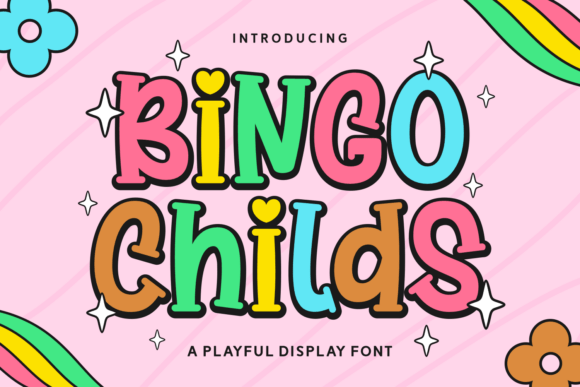
The Joy of Bingo Childs Font: A Designer’s New Best Friend
I still remember the design project that led me to discover Bingo Childs Font. I was working on a children’s book, and my client asked for a font that was ‘fun, playful, and full of energy.’ I scoured the internet, tried out dozens of fonts, but nothing seemed quite right. That was until I stumbled upon Bingo Childs. Its bold, rounded letterforms and whimsical curves instantly captured the playful spirit of the project. I knew right then and there that I had found my new go-to font for all things fun and vibrant.
An Honest Review of Bingo Childs Font
• ✨ Playful and cheerful vibe: Bingo Childs radiates happiness and energy, making it perfect for designs that need a fun twist.
• ✅ Multilingual support: This font supports multiple languages, making it versatile for global projects.
• 🎉 Whimsical details: The quirky details and curves add a touch of personality to any design.
• 💻 Versatile structure: Bingo Childs can be used for a wide range of projects, from children’s books to social media graphics.
While Bingo Childs is an amazing font, there are a few things to keep in mind:
• 🤔 Legibility at small sizes: Like many playful fonts, Bingo Childs can become a bit tricky to read at very small sizes. It’s best used at larger sizes where its personality can shine.
• ⚠️ Overuse: While Bingo Childs is incredibly fun, using it excessively can make your design feel overwhelming. Balance is key.
The Backstory of Bingo Childs Font
Bingo Childs was designed with one goal in mind: to create a font that embodies fun and playfulness. The designer, inspired by the joy of childhood and the world of games, aimed to craft a typeface that would bring a smile to everyone’s face. With its bold, rounded letters and whimsical details, Bingo Childs is a testament to the power of creativity and imagination.
Font Name Bingo Childs Font
Author Dito (7NTypes)
Q: What makes Bingo Childs Font unique?
A: Bingo Childs Font is unique due to its bold, rounded letterforms accented with whimsical curves and quirky details, making it perfect for designs that need a playful and cheerful vibe.
Q: Is Bingo Childs suitable for body text?
A: While Bingo Childs is incredibly fun and playful, it’s best used for headings and titles. For body text, a more legible font is recommended.